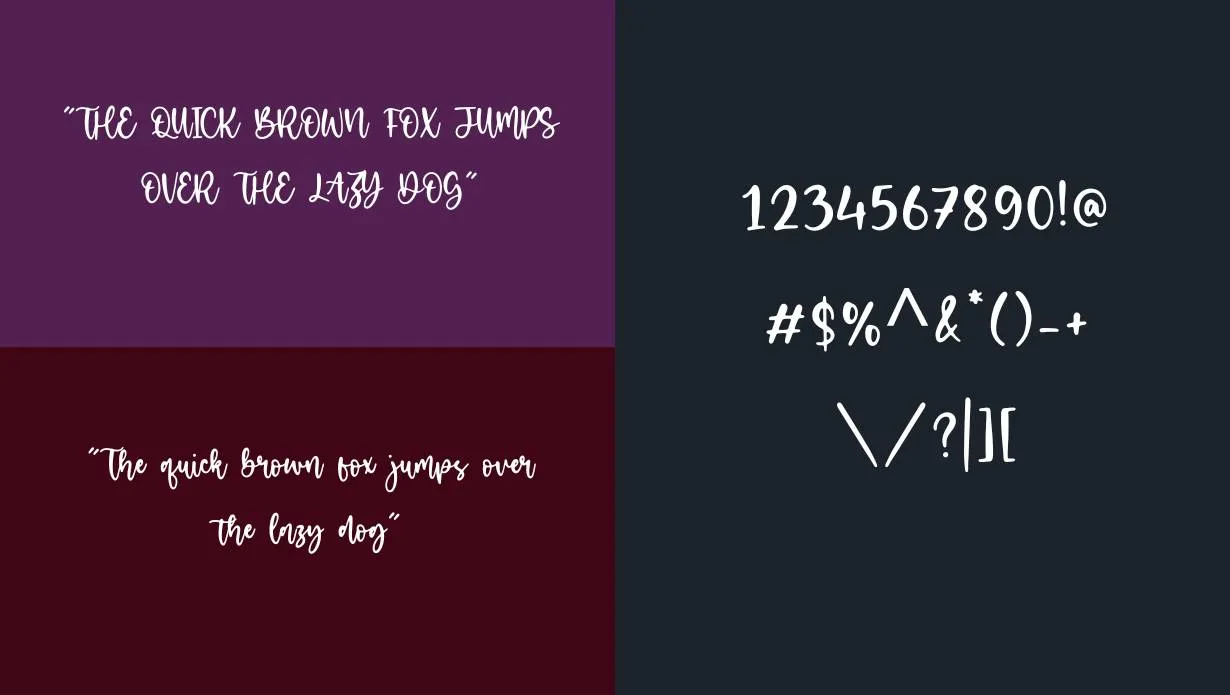
Eclipse Cinema font was created by Letterative Studio in 2020 named “Eclipse Cinema”. This typeface comes in the Handwritten font family that features an incredible appearance. It comes with TTF and OTF formats.
It also includes stylish characters that can give a more innovative touch to anything, Moreover, you can make a pair of this typeface with golden plains font and make outstanding designs.
Eclipse Cinema Font Family